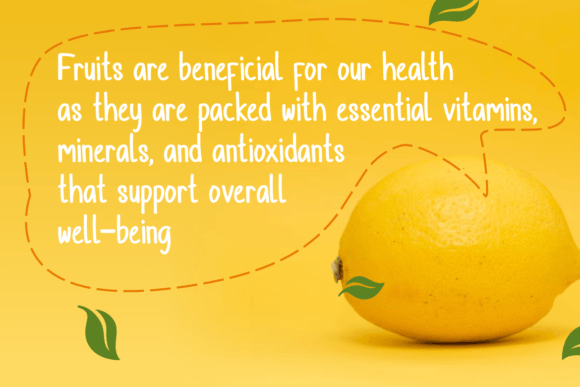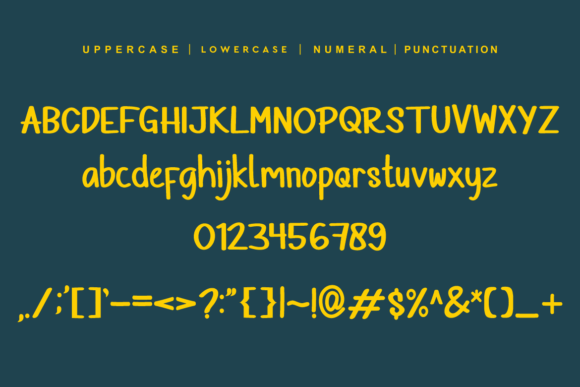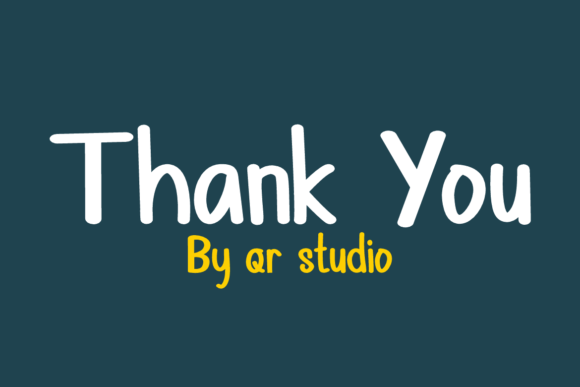
Introduction to Kenjago Font
Have you ever stared at a blank canvas, feeling the weight of creativity on your shoulders? That’s when the magic happens – when the perfect design resource falls into your lap, and your imagination runs wild. For designers like us, discovering a new, high-quality font can be a game-changer. And that’s exactly what we’re excited to share with you today: the Kenjago Font.
This sweet and friendly handwritten font is a breath of fresh air in the world of design. Its natural, unique look makes it incredibly versatile, suitable for a wide range of creative projects. Whether you’re working on a graphic design project with a transparent background or need a font for a free download, Kenjago Font is sure to impress.
Key Features of Kenjago Font
- High-quality design resource suitable for creative projects, offering a unique and stylish look.
- Unique characteristics, such as its modern and sleek design, make it an excellent choice for designers seeking a distinctive look for their creative project.
Honest Review: Kenjago Font
As a designer, I’m always on the lookout for high-quality design resources to elevate my creative projects. Recently, I stumbled upon the Kenjago Font, and I’m excited to share my honest review with you.
- Unique and modern design aesthetic: The Kenjago Font boasts a sleek and modern design that’s perfect for contemporary projects.
Overall, I’m impressed with the Kenjago Font’s unique design and high-quality vector format. While it has some limitations, it’s still a valuable resource for designers working on creative projects. I’d definitely recommend it to anyone looking for a modern and stylish font.
For the most out of Kenjago Font, use it in combination with a clean and minimalist design. Experiment with different font sizes and colors to create a visually appealing effect. Also, use the font in conjunction with a transparent background to add depth and sophistication to your design.
Kenjago Font is commonly used in creative projects such as branding, logos, and infographics. Its high-quality design and transparent background feature make it perfect for creating eye-catching and professional-looking designs.
Alternatives to Kenjago Font
Montserrat is a popular sans-serif font designed by Julieta Ulanovsky. It’s perfect for creative projects that require a modern and sleek look. Montserrat has a wide range of weights and styles, making it an excellent choice for designers who want a high-quality font for their designs. It’s also available for free download, making it a great alternative to Kenjago Font for designers who are on a budget.
No, the Kenjago Font is a solid font with no transparent background. However, you can easily create a transparent background by using a design tool like Adobe Illustrator or Canva. Simply place the font on a transparent layer or use a masking technique to achieve the desired effect.